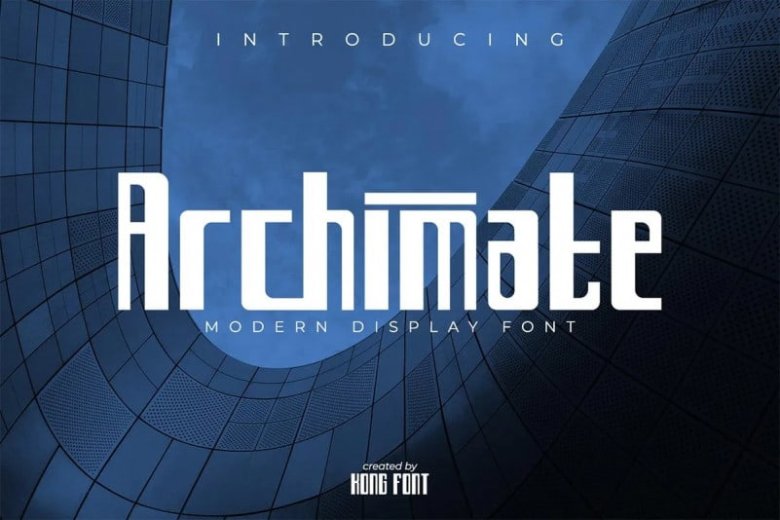
Archimate Display Font
Archimate Display Font creates impact everywhere it lands. Impressive headlines are its specialty, but it feels right at home used in packaging, branding and poster design. This typeface is designed and shared by fontkong. A stylish modern sans serif condensce display font. Minimalist character that allowing you to easily edit the designs.
Archimate Display Font perfect for logo, sticker, brand, music, label, packaging, tattoo, Halloween, clothing and any stylish modern design theme.